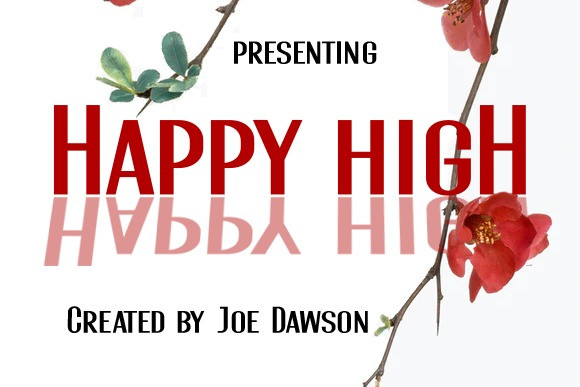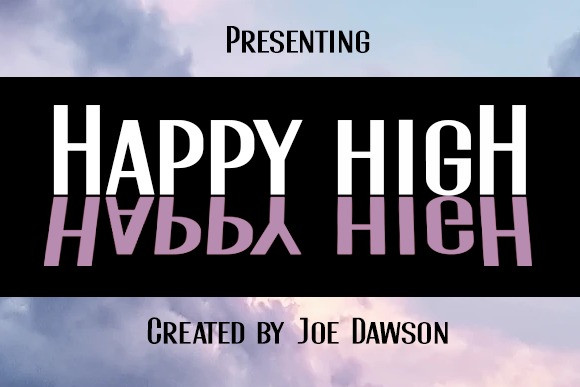
Dashpeer Display Font
Dashpeer is a cool and unique display font. It can be used for various purposes such as logos, headings, t-shirts, letterhead, signage, labels, news, posters, badges and so much more.